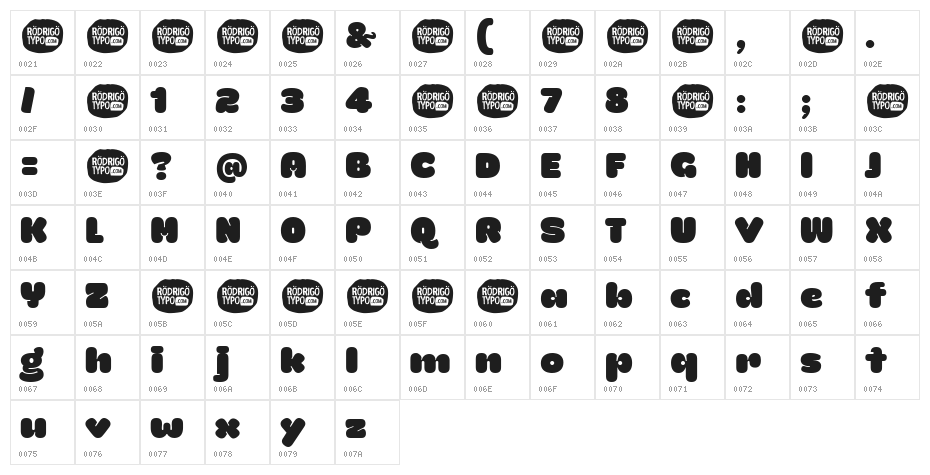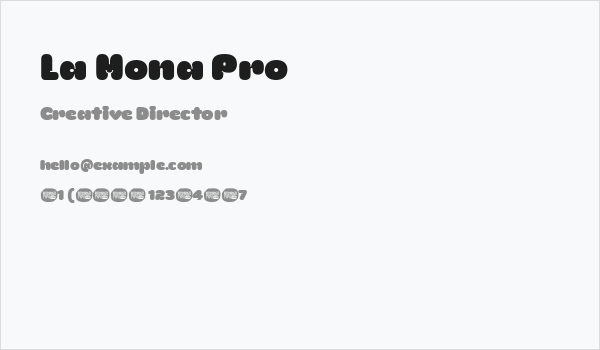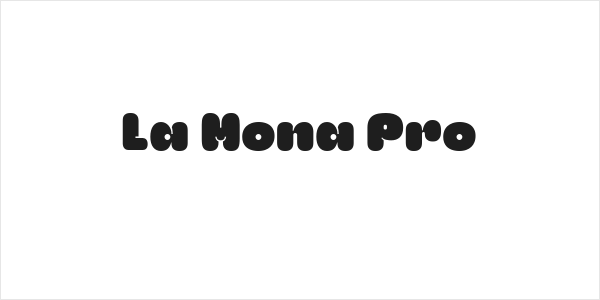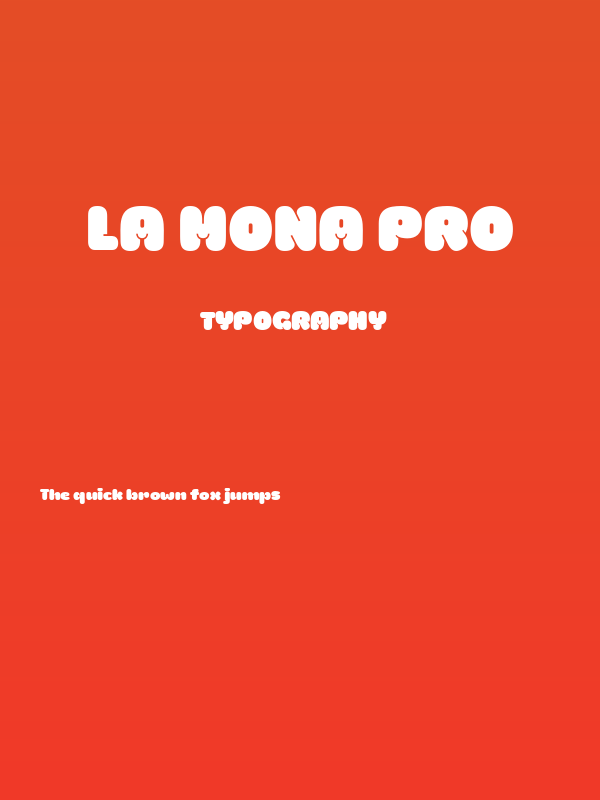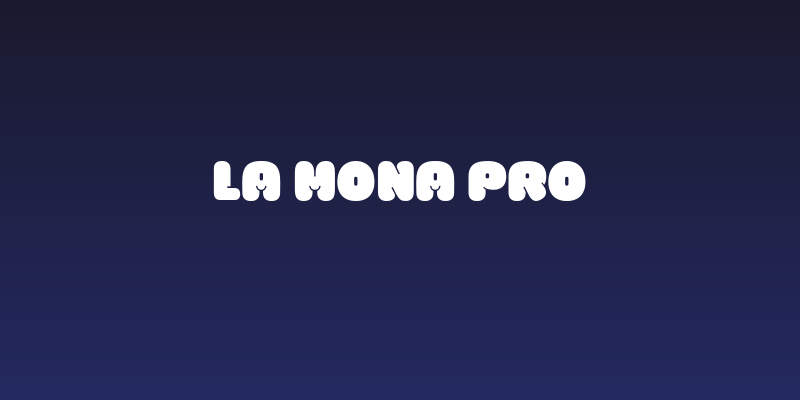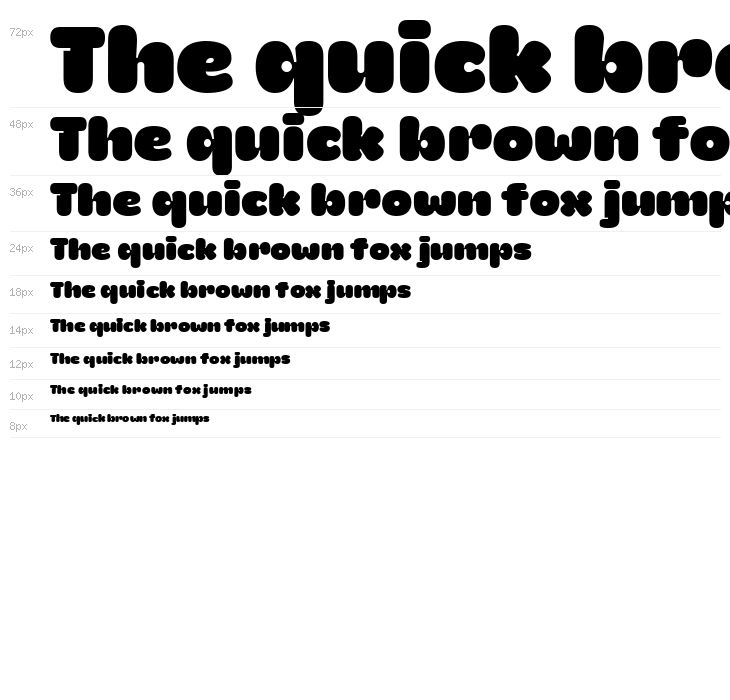
La Mona Pro Font
La Mona Pro Description
This font features a bold and playful design with rounded edges and a heavy weight, giving it a bubbly and friendly appearance. The characters are uniformly thick, contributing to a cohesive and solid look. The uppercase and lowercase letters maintain a consistent style, with a slight variation in size and shape that adds to the font's charm. The numbers and special characters follow the same design principles, ensuring a harmonious overall appearance. This font is highly legible and stands out due to its unique, chunky style.
| Overall Style | Playful, Modern |
| Proposed Projects | Ideal for children's books, playful branding, posters, and any project requiring a fun and approachable aesthetic. |